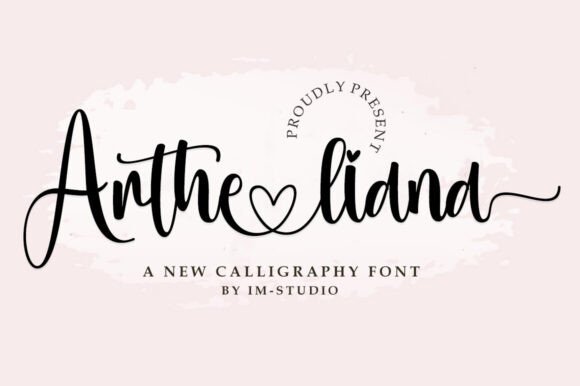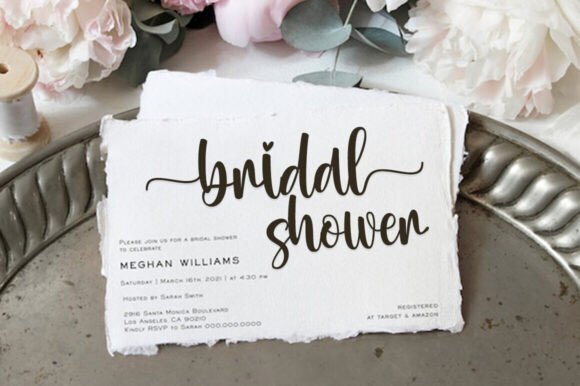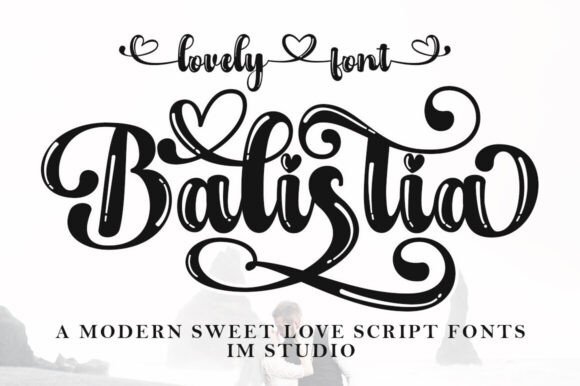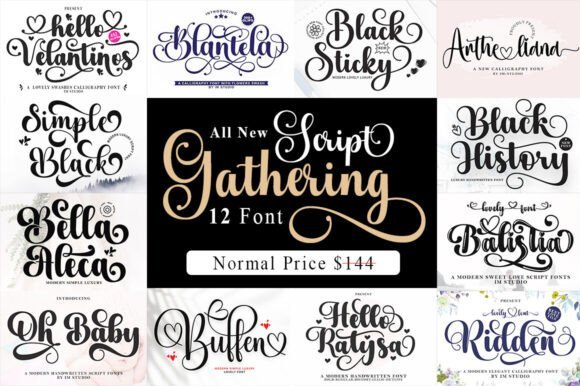
Introduction to Script Gathering (bundle) Font
Discover the enchanting allure of Script Gathering, an exquisitely curated set of handwritten fonts manifesting charm, style and expressiveness.
Ideal for gracing everything from heartfelt greeting cards and catchy headlines, to romantic wedding themes, festive Christmas events, jubilant birthdays, inspiring quotes, and captivating stickers Overlaying images with these sophisticated fonts further enhances their appeal.
Script Gathering (bundle) Font offers exceptional quality and versatility, making it a valuable addition to your design toolkit. Whether you’re creating for personal projects or commercial use, Script Gathering (bundle) Font delivers professional results.